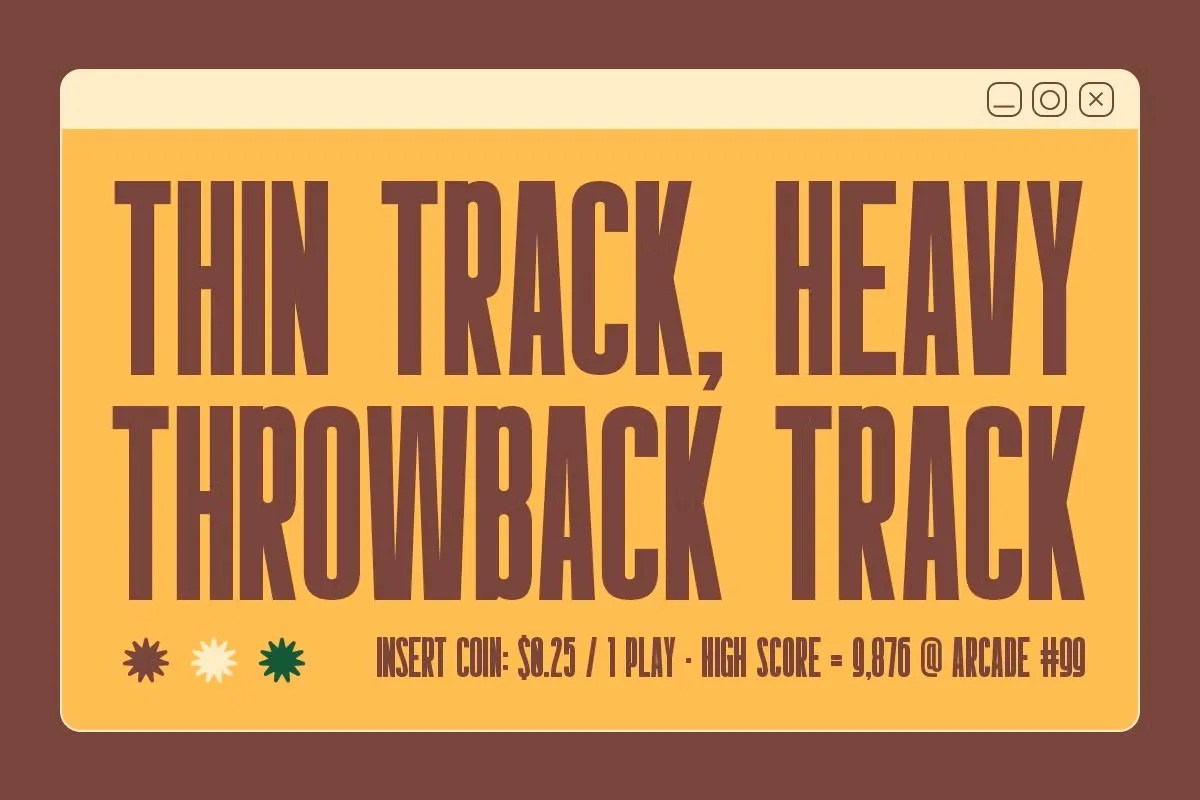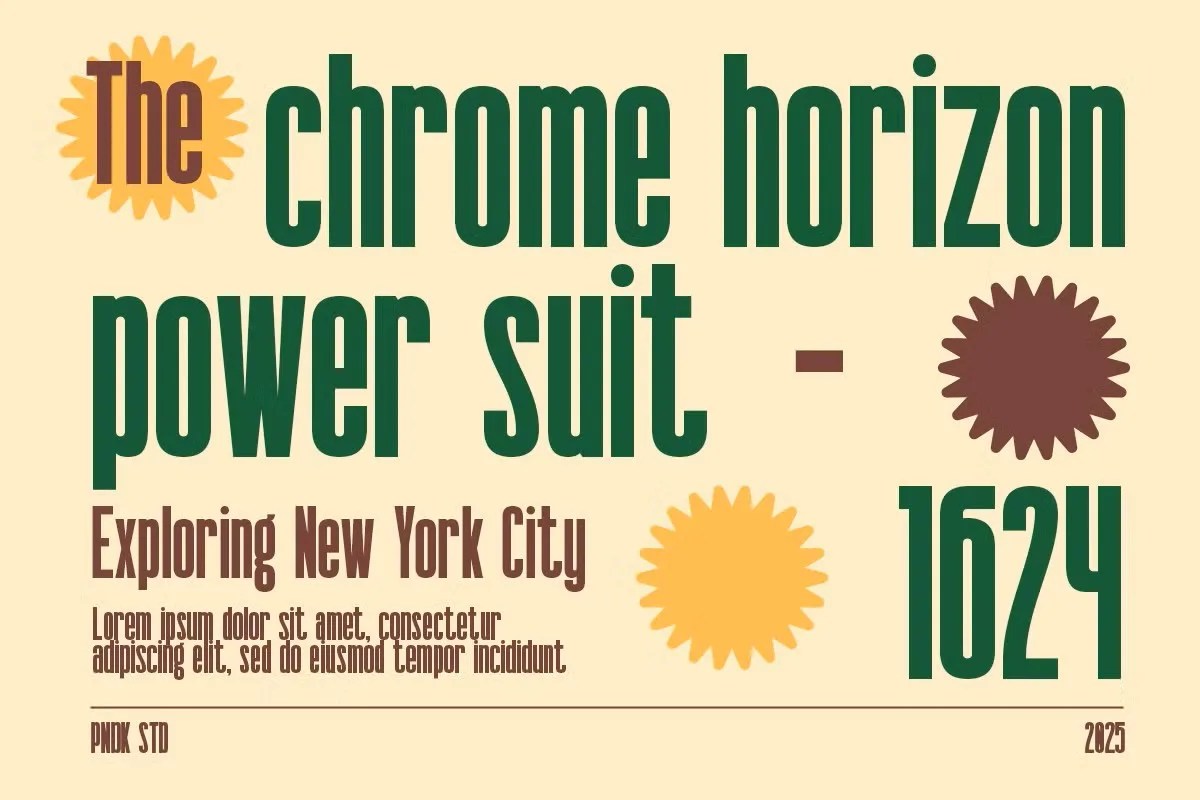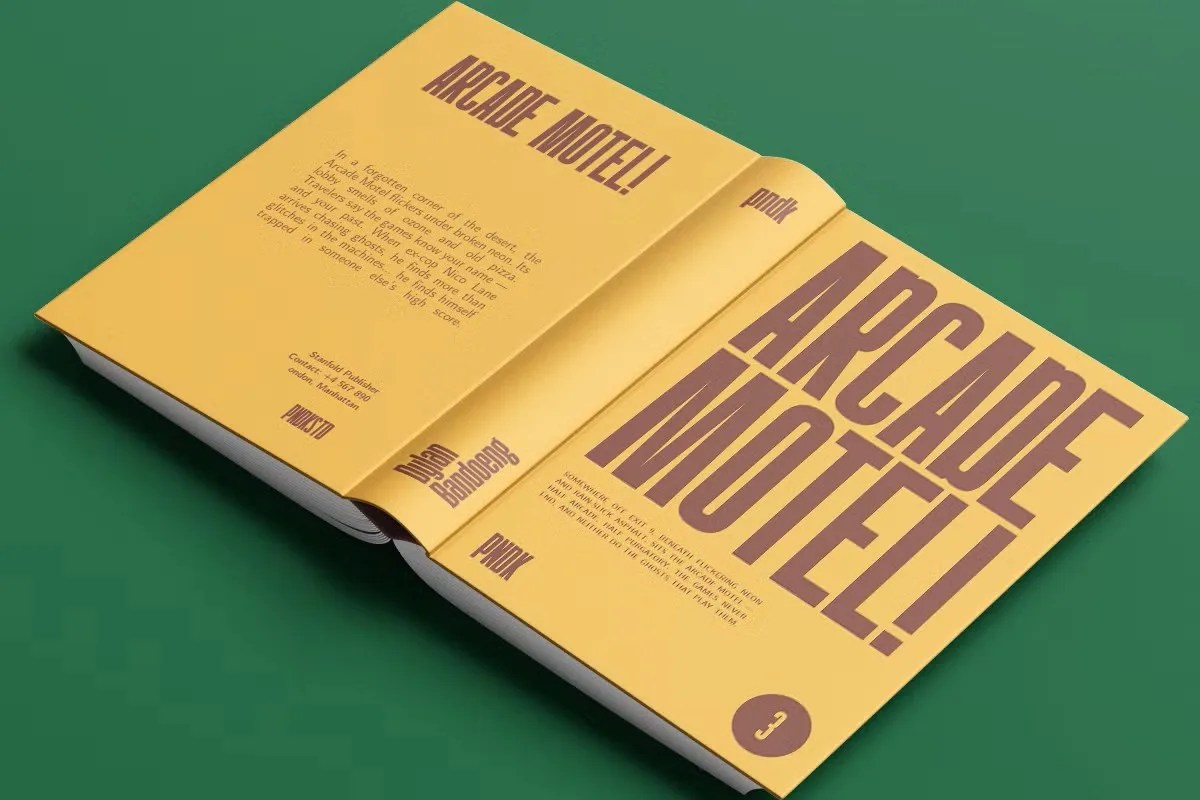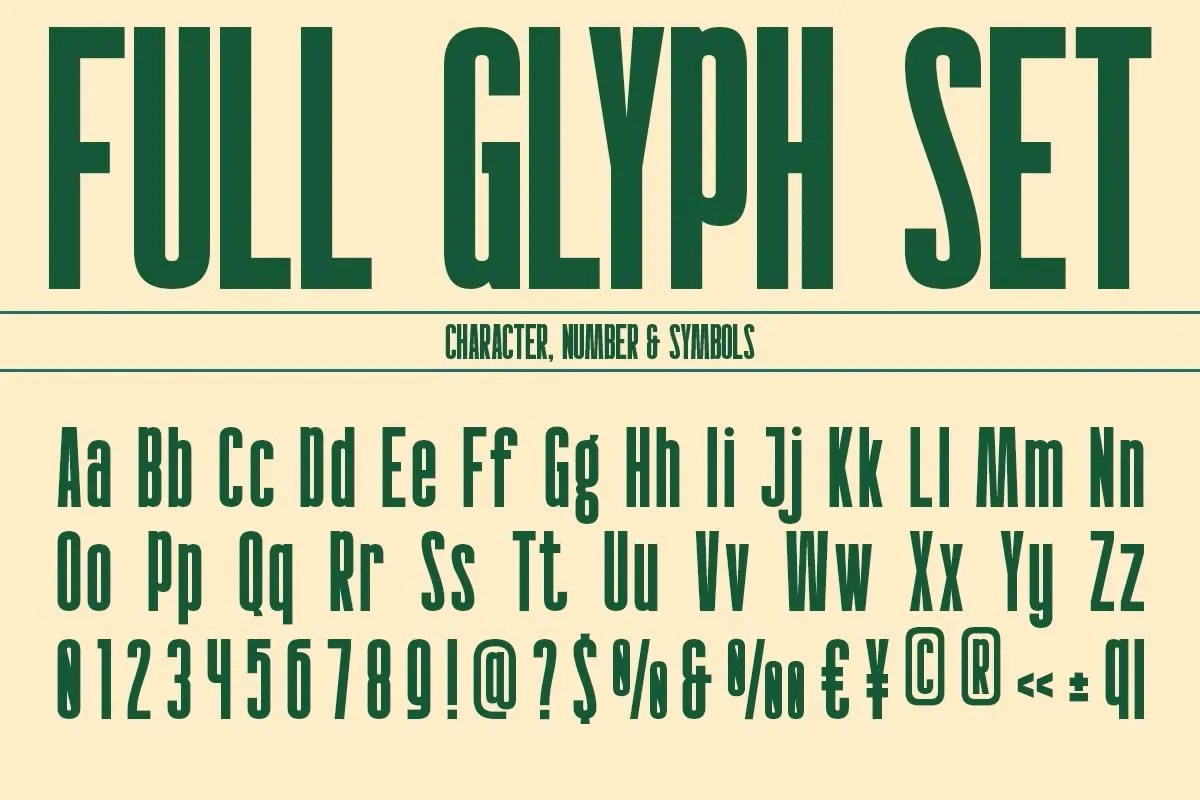
Gondens by Pandeka Studio is a striking and modern display font designed to make a bold statement. With its clean lines and strong presence, this typeface is perfect for designers looking to add a touch of contemporary power to their work. Its commanding aesthetic makes it an excellent choice for headlines, branding, logos, posters, and any project that requires impactful typography.
Whether you’re crafting a captivating title sequence, designing eye-catching social media graphics, or creating a unique brand identity, Gondens provides the visual strength to ensure your message stands out. This font is a versatile tool for any creative looking to elevate their design’s impact. Please note, this version is available for Personal Use only.
• Modern and bold display style
• Includes uppercase, lowercase, numerals, and punctuation
• Ideal for headlines, branding, logos, and titles
• Clean and impactful letterforms
Gondens